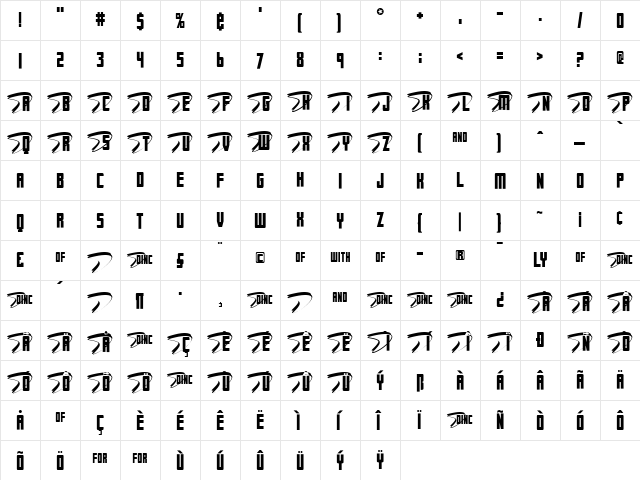
Moondog Regular
Design Context for Moondog Typeface
Moondog offers clean, dependable letterforms without strong stylistic allegiance, making it a practical choice for designers who need flexibility.
Pro Tip: Use Moondog in both headline and body roles to test its range before committing to a single application.